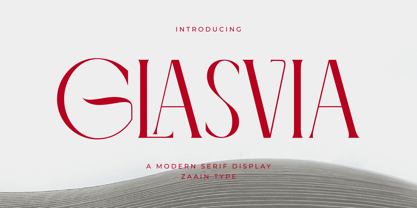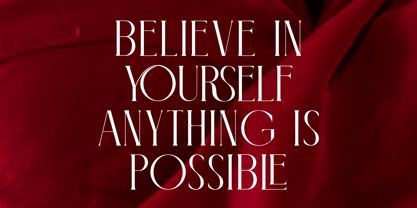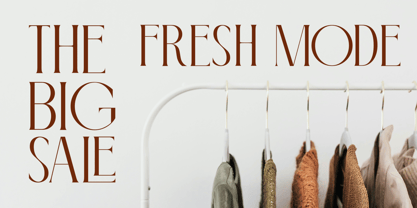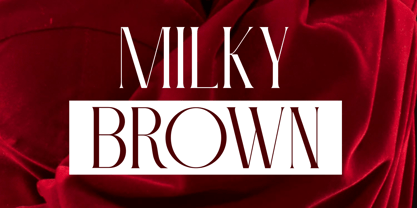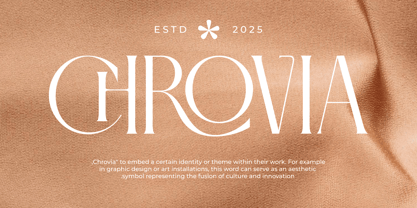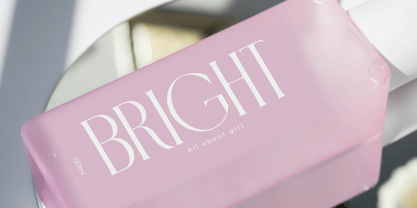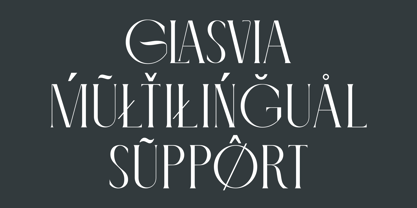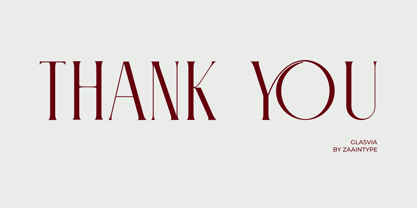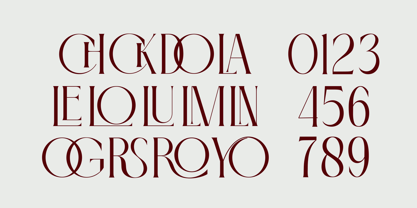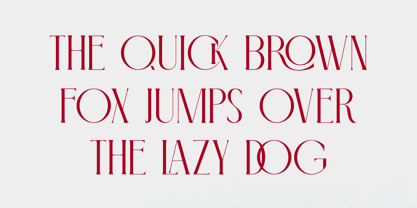
Glasvia
by Zaain Type
The Glasvia Font Family was designed by Ju Naen and published by Zaain Type. Glasvia contains 1 styles.
Glasvia is a serif font with an elegant and light touch, perfect for designs that require a classy look without appearing heavy. With smooth letterforms and balanced contrast, Glasvia fits beautifully in branding, editorial layouts, and luxury packaging.
Graceful yet professional — Glasvia is ready to elevate your brand’s visual identity